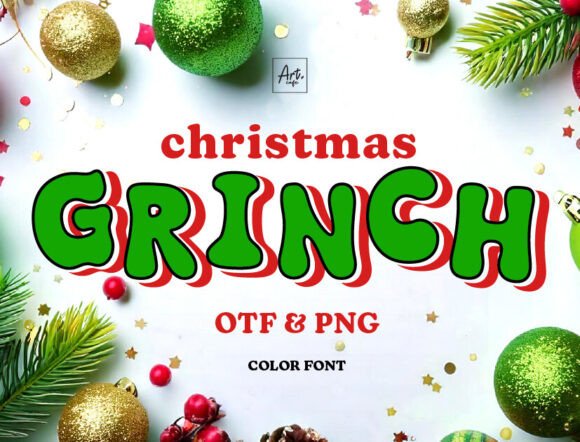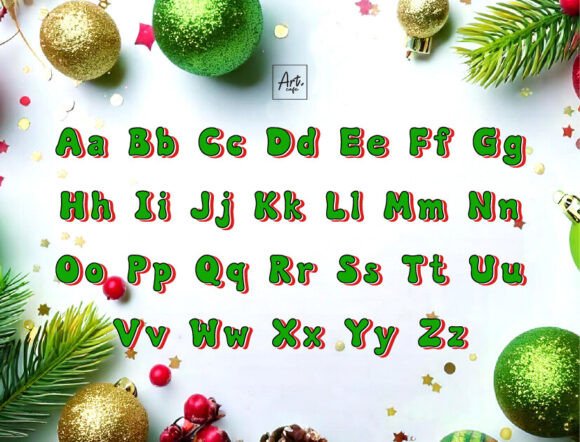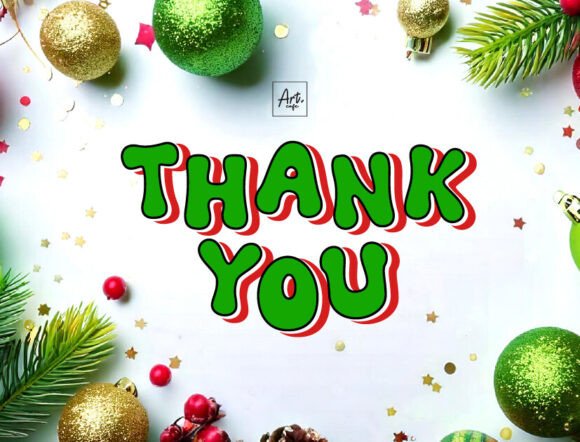
Christmas Grinch Font
Introducing Christmas Grinch, a vibrant color font that effortlessly merges bold retro charm with a dash of fancy flair. Bathed in classic green and red colors, this font evokes the spirit of festive joy and whimsy. Perfectly tailored for light-hearted Christmas holidays, it’s also a hit for kids’ projects that call for a fun aesthetic. Included in this font package is an OTF file along with PNG files, making it a great pick for crafters keen on creating unique designs. Embrace the merry mischief of the holiday season with the Christmas Grinch font!